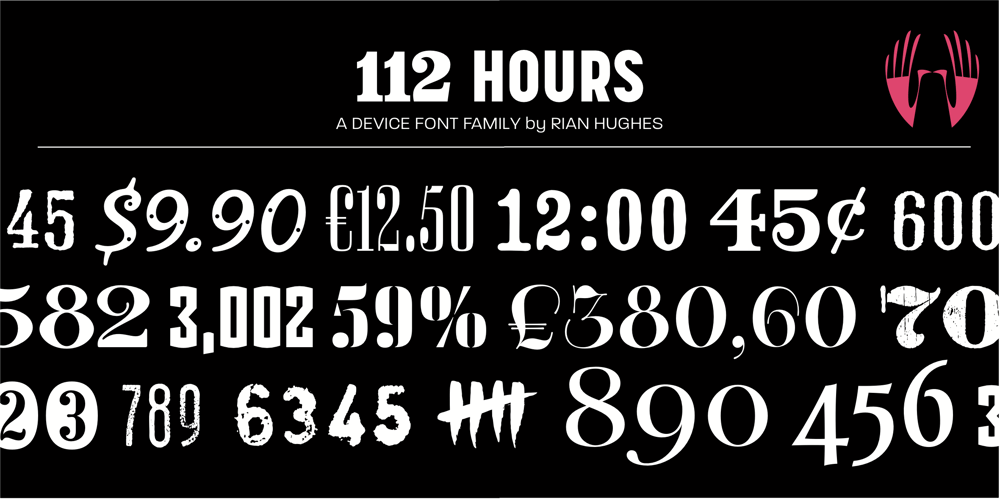
112 Hours
112 Hours font
112 Hours Font Family was designed by Rian Hughes and published by Device. 112 Hours contains 120 styles and family package options. Rian Hughes’ 15th collection of fonts, “112 Hours”, is entirely dedicated to numbers. Culled from a myriad of sources – clock faces, tickets, watches house numbers – it is an eclectic and wide-ranging set. Each font contains only numerals and related punctuation – no letters. A new book has been designed by Hughes to show the collection, and includes sample settings, complete character sets, source material and an introduction. This is available print-to-order on Blurb in paperback and hardback: http://www.blurb.com/b/5539073-112-hours-hardback http://www.blurb.com/b/5539045-112-hours-paperback From the introduction: The idea for this, the fifteenth Device Fonts collection, began when I came across an online auction site dedicated to antique clocks. I was mesmerized by the inventive and bizarre numerals on their faces. Shorn of the need to extend the internal logic of a typeface through the entire alphabet, the designers of these treasures were free to explore interesting forms and shapes that would otherwise be denied them. Given this horological starting point, I decided to produce 12 fonts, each featuring just the numbers from 1 to 12 and, where appropriate, a small set of supporting characters — in most cases, the international currency symbols, a colon, full stop, hyphen, slash and the number sign. 10, 11 and 12 I opted to place in the capital A, B and C slots. Each font is shown in its entirety here. I soon passed 12, so the next logical finish line was 24. Like a typographic Jack Bauer, I soon passed that too -— the more I researched, the more I came across interesting and unique examples that insisted on digitization, or that inspired me to explore some new design direction. The sources broadened to include tickets, numbering machines, ecclesiastical brass plates and more. Though not derived from clock faces, I opted to keep the 1-12 conceit for consistency, which allowed me to design what are effectively numerical ligatures. I finally concluded one hundred fonts over my original estimate at 112. Even though it’s not strictly divisible by 12, the number has a certain symmetry, I reasoned, and was as good a place as any to round off the project. An overview reveals a broad range that nonetheless fall into several loose categories. There are fairly faithful revivals, only diverging from their source material to even out inconsistencies and regularize weighting or shape to make them more functional in a modern context; designs taken directly from the source material, preserving all the inky grit and character of the original; designs that are loosely based on a couple of numbers from the source material but diverge dramatically for reasons of improved aesthetics or mere whim; and entirely new designs with no historical precedent. As projects like this evolve (and, to be frank, get out of hand), they can take you in directions and to places you didn’t envisage when you first set out. Along the way, I corresponded with experts in railway livery, and now know about the history of cab side and smokebox plates; I travelled to the Musée de l’imprimerie in Nantes, France, to examine their numbering machines; I photographed house numbers in Paris, Florence, Venice, Amsterdam and here in the UK; I delved into my collection of tickets, passes and printed ephemera; I visited the Science Museum in London, the Royal Signals Museum in Dorset, and the Museum of London to source early adding machines, war-time telegraphs and post-war ration books. I photographed watches at Worthing Museum, weighing scales large enough to stand on in a Brick Lane pub, and digital station clocks at Baker Street tube station. I went to the London Under-ground archive at Acton Depot, where you can see all manner of vintage enamel signs and woodblock type; I photographed grocer’s stalls in East End street markets; I dug out old clocks I recalled from childhood at my parents’ place, examined old manual typewriters and cash tills, and crouched down with a torch to look at my electricity meter. I found out that Jane Fonda kicked a policeman, and unusually for someone with a lifelong aversion to sport, picked up some horse-racing jargon. I share some of that research here. In many cases I have not been slavish about staying close to the source material if I didn’t think it warranted it, so a close comparison will reveal differences. These changes could be made for aesthetic reasons, functional reasons (the originals didn’t need to be set in any combination, for example), or just reasons of personal taste. Where reference for the additional characters were not available — which was always the case with fonts derived from clock faces — I have endeavored to design them in a sympathetic style. I may even extend some of these to the full alphabet in the future. If I do, these number-only fonts could be considered as e